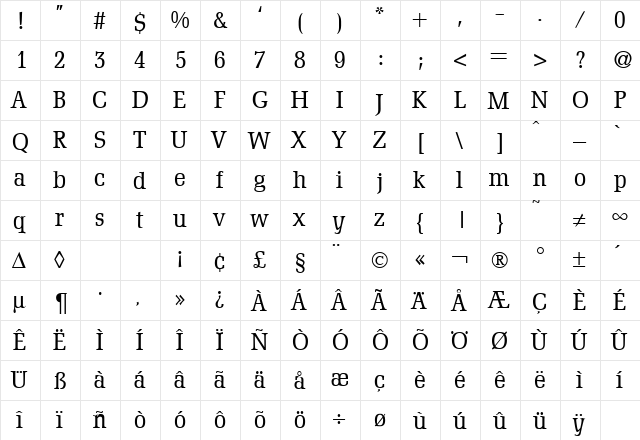
Domenica DB Regular
Design Context for Domenica DB Typeface
Domenica DB takes a measured approach to typography — its balanced proportions and neutral character make it a reliable workhorse for both digital and print work.